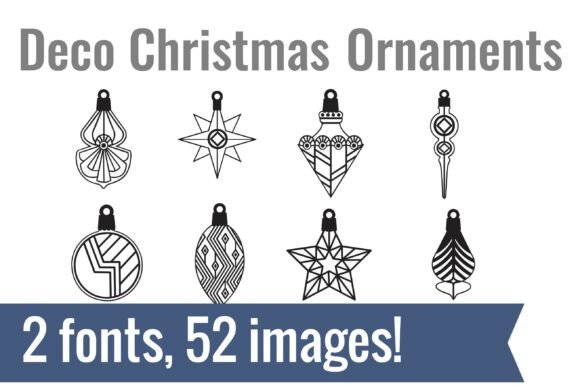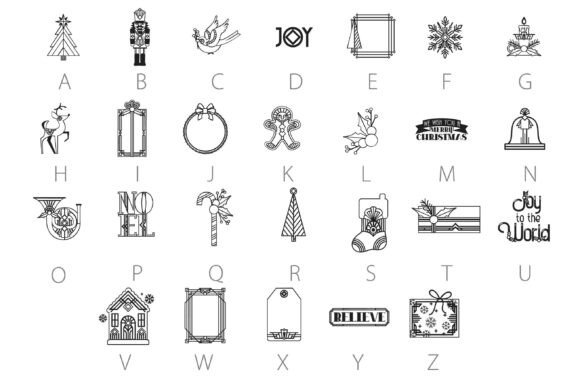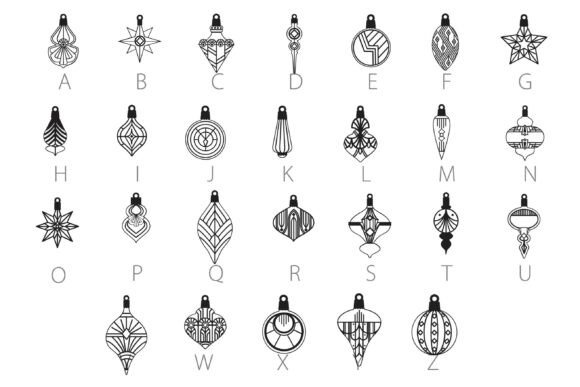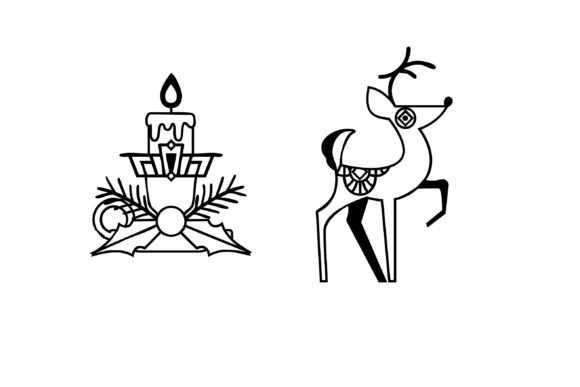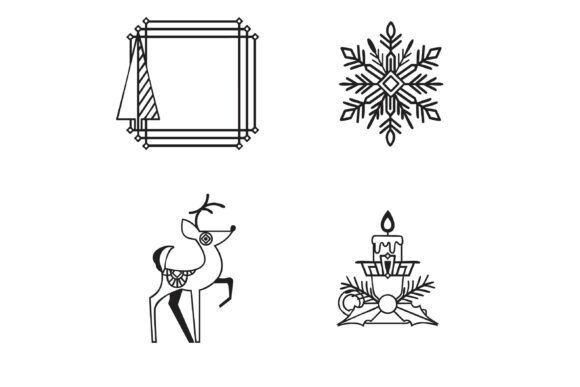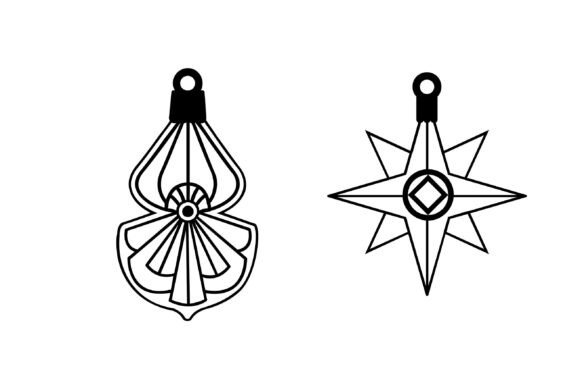
Introduction to Deco Christmas Dingbats Font
As the holiday season approaches, designers are on the hunt for the perfect typeface to elevate their creative projects. Imagine pouring over a collection of intricate, geometric illustrations that capture the essence of Christmas – a time of joy, elegance, and refined beauty. The Deco Christmas Dingbats Font is here to bring your vision to life, offering a pair of dingbat typefaces that seamlessly blend the classic Art Deco style with the festive spirit of the season.
This stunning font set is a valuable resource for designers seeking to create high-end holiday invitations, chic branding, and sophisticated materials for winter weddings. With 52 striking glyphs, the Deco Christmas Dingbats Font provides endless opportunities for creativity and self-expression. Whether you’re working on a free download or a high-quality design project, this versatile typeface is sure to impress.
Key Features of Deco Christmas Dingbats Font
- Unique, high-quality design elements ideal for creative projects and holiday-themed designs.
- Perfect for adding a touch of festive charm to designs, making it an ideal design resource for the holiday season.
Honest Review: Deco Christmas Dingbats Font
I recently stumbled upon the Deco Christmas Dingbats Font, and I must say it’s been a game-changer for my creative projects. This high-quality design resource is perfect for adding a touch of elegance and sophistication to any winter-themed design.
- Wide range of ornaments and decorations: From stars and snowflakes to bells and wreaths, this font has got you covered for any creative project.
- Limited character set: While the font is great for ornaments and decorations, it’s not ideal for long blocks of text.
- No bold or italic styles: This might be a limitation for designers who want to add emphasis to certain text elements.
Overall, I’m really impressed with the Deco Christmas Dingbats Font. It’s a great design resource that’s perfect for adding a touch of festive flair to your designs. While it has some limitations, I think it’s a valuable addition to any designer’s toolkit.
The Deco Christmas Dingbats Font is a high-quality design resource perfect for adding a touch of festive flair to your creative project. With its transparent background, this font is ideal for overlaying onto images or using as a standalone design element.
The Deco Christmas Dingbats Font is perfect for:
- Creating festive holiday designs and graphics.
- Adding a touch of elegance to wedding invitations and stationery.
- Designing holiday-themed social media graphics and ads.